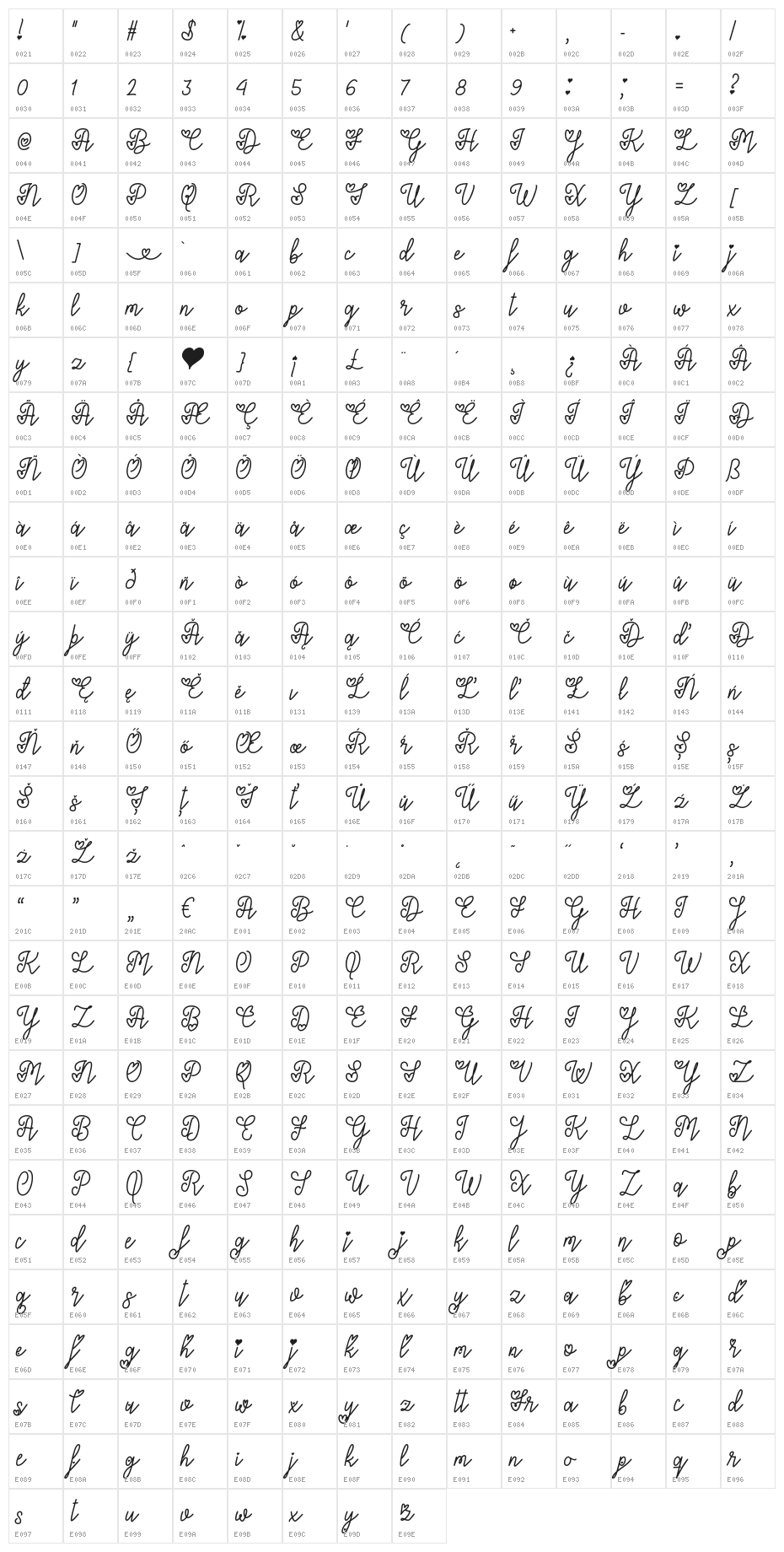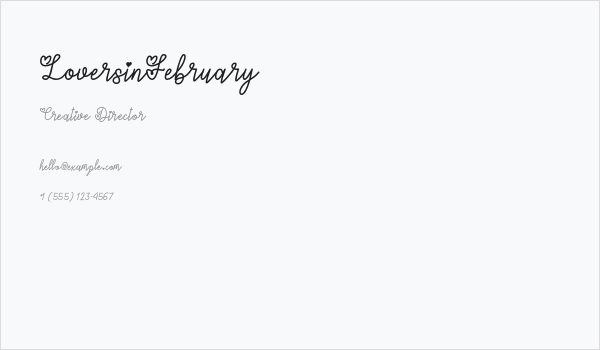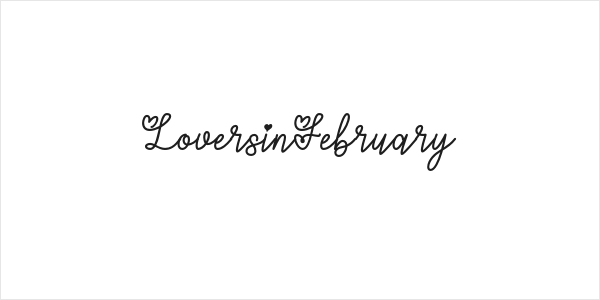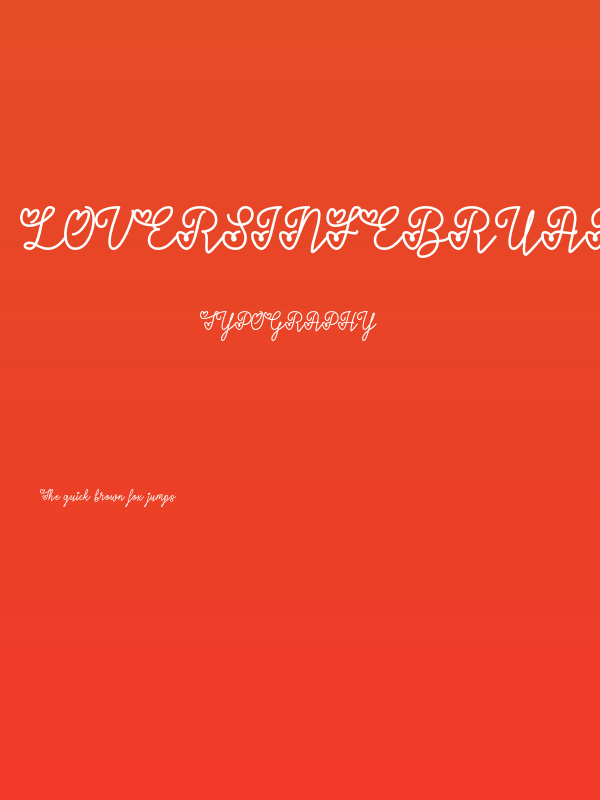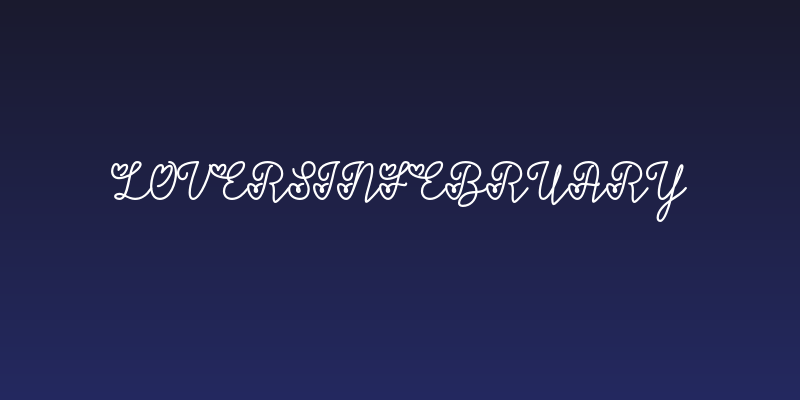
LoversinFebruary Font
LoversinFebruary Description
This font exudes a romantic and whimsical charm, characterized by its flowing script style with playful heart motifs integrated into the uppercase letters. The lowercase letters maintain a smooth, cursive flow, enhancing its elegant and personal touch. The numerals and special characters complement the overall design with a consistent style that maintains the font's playful and affectionate theme. The strokes are moderately thick, providing a balanced contrast that ensures readability while preserving its decorative appeal.
| Proposed Projects | Ideal for wedding invitations, Valentine's Day cards, love letters, and romantic branding projects. |